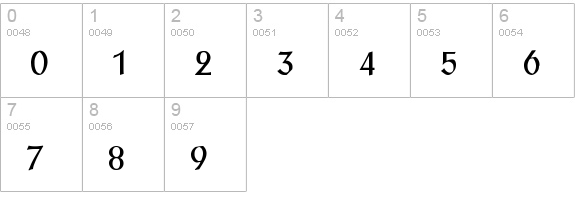
PostAntiqua-Light Font Details
PostAntiqua-Light is a refined, elegant variant in the PostAntiqua typeface family \xE2\x80\x94 well suited to elegant body text, refined sub-headings, and luxury branding.
PostAntiqua-Light is a sophisticated and elegant font that exudes timeless charm and classical appeal. Its slender and refined letterforms convey a sense of grace and sophistication, making it perfect for projects that require a touch of elegance. The delicate serifs and subtle curves of PostAntiqua-Light create a harmonious balance that is pleasing to the eye. Best of all, PostAntiqua-Light is available for free download at FontsMarket.com. This means you can easily access this beautiful font and use it in your design projects without any cost. Whether you're working on invitations, branding, or editorial design, PostAntiqua-Light is a versatile choice that will add a touch of class to your work. Download it today and elevate your designs with this stunning typeface.